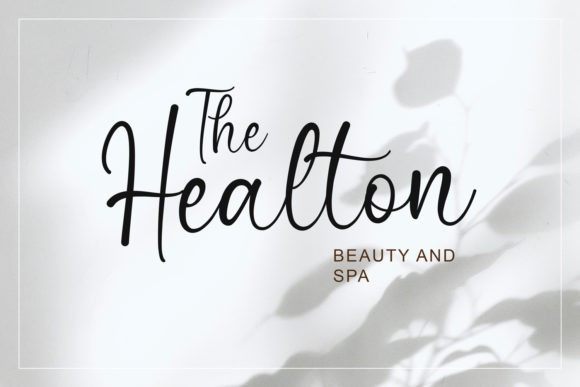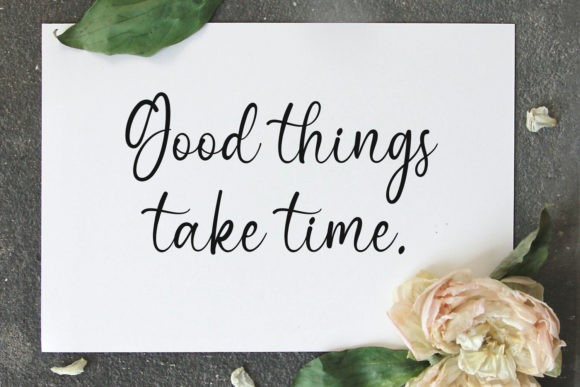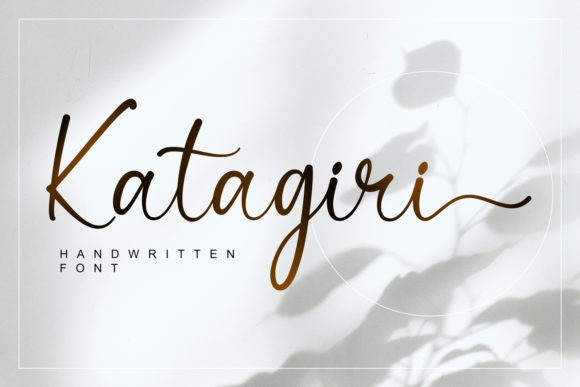
Katagiri Font
Katagiri Script Font is a beautiful light handwritten font with a unique feel and a stunning impact. It will add a luxury spark to any design project that you wish to create! This font is PUA encoded which means you can access all of the amazing glyphs and ligatures with ease!